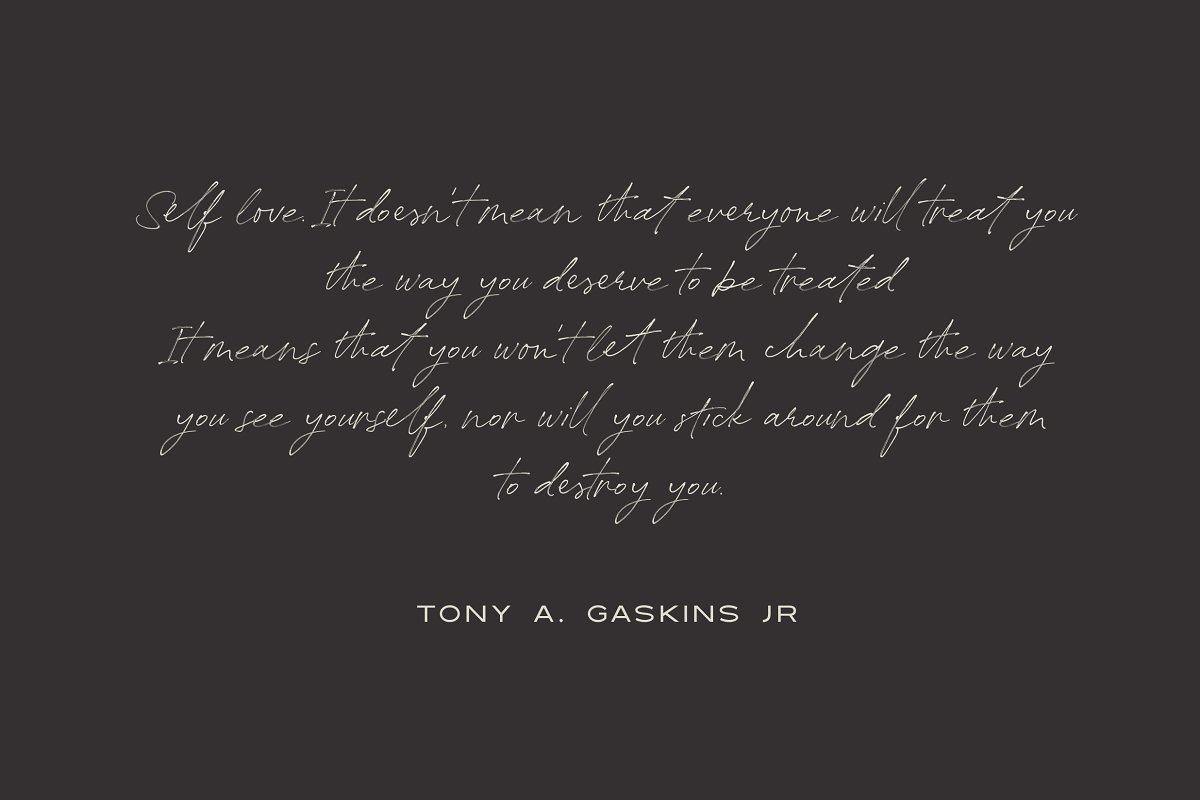
About the The Redstock Handwritten Script Font
Imagine the fonts as a visual cosmetic, Yes, started from that idea, we came up with the set of fonts and design arsenal called The Red Stock, An authentic handwritten script font with almost-empty ballpoint effect, Perfectly fit for your logo, branding, a fancy signature for every project, anything, Feel the versatileness in every stroke of it like a daily makeup to visually attract all eyes on you
WHAT’S INSIDEThe Red Stock Font : Handwritten fonts with ballpoint effect, Included a bunch of ligature features to make it seamlessly handwritten so nobody realise that this is a font, Rebelton – Extended : An early access to our upcoming font-family release